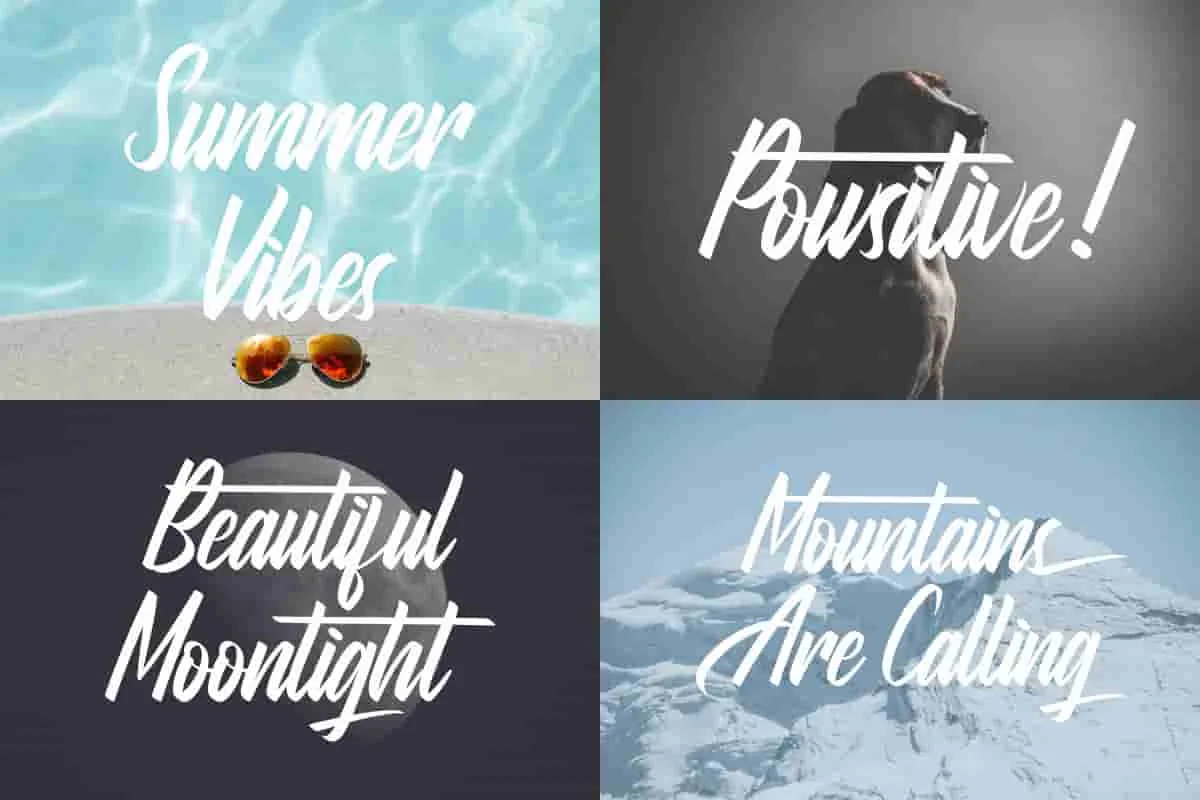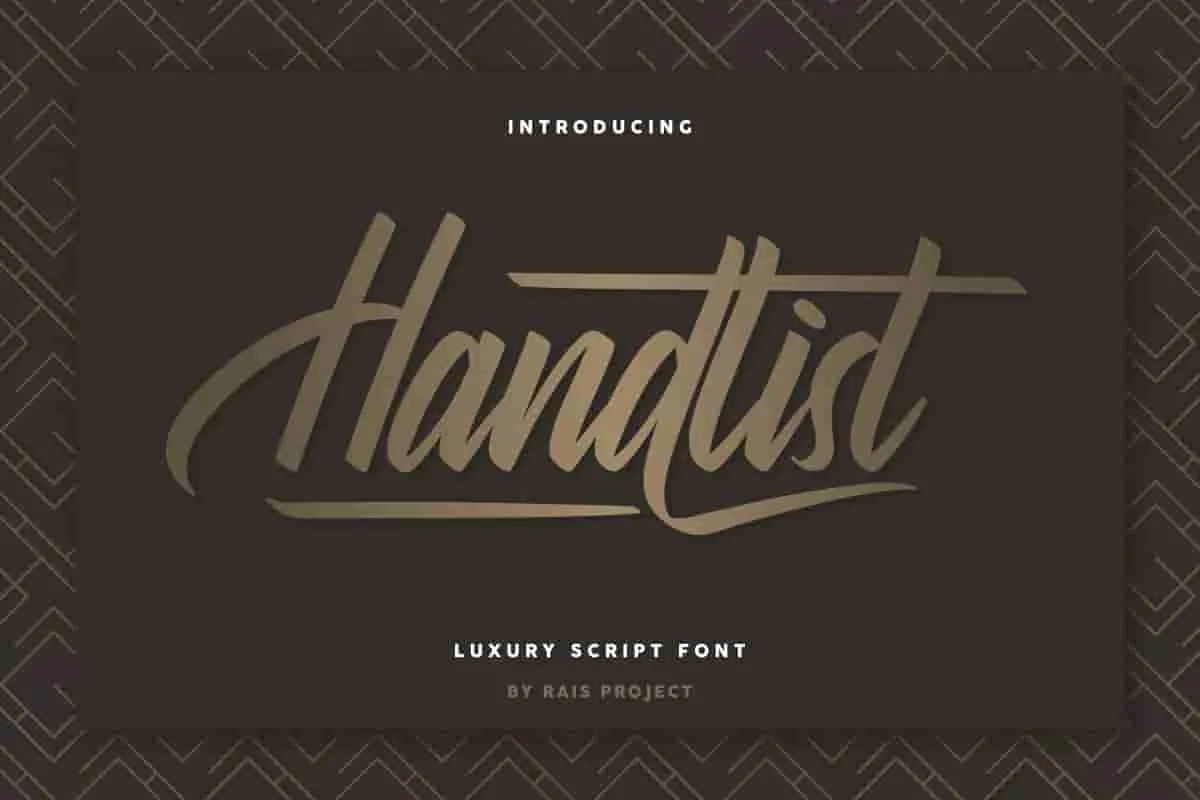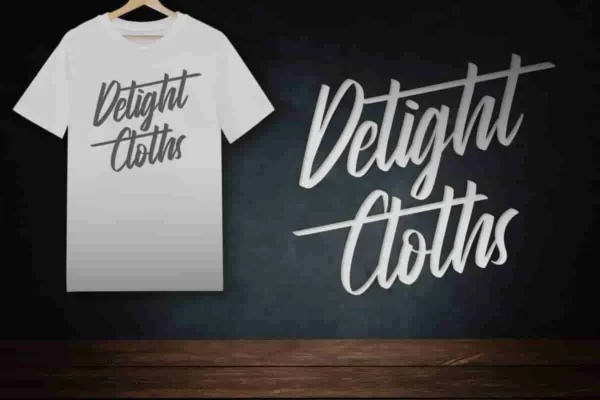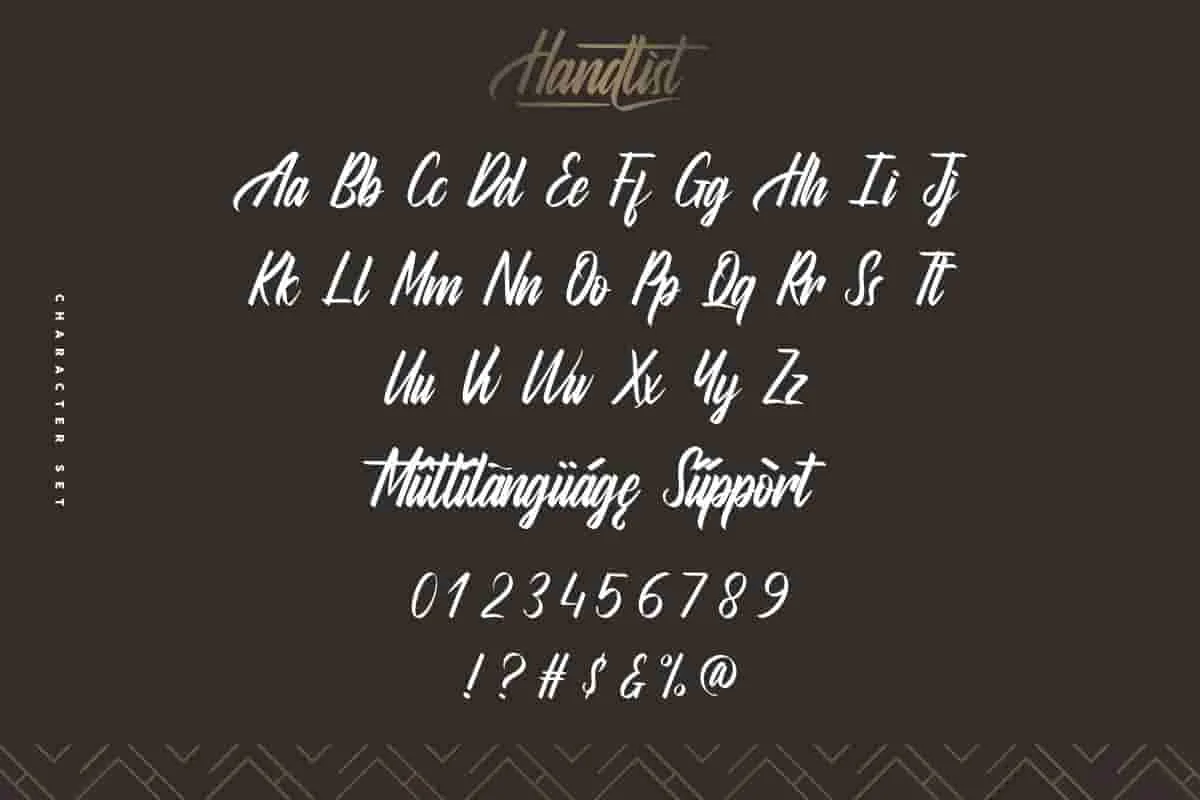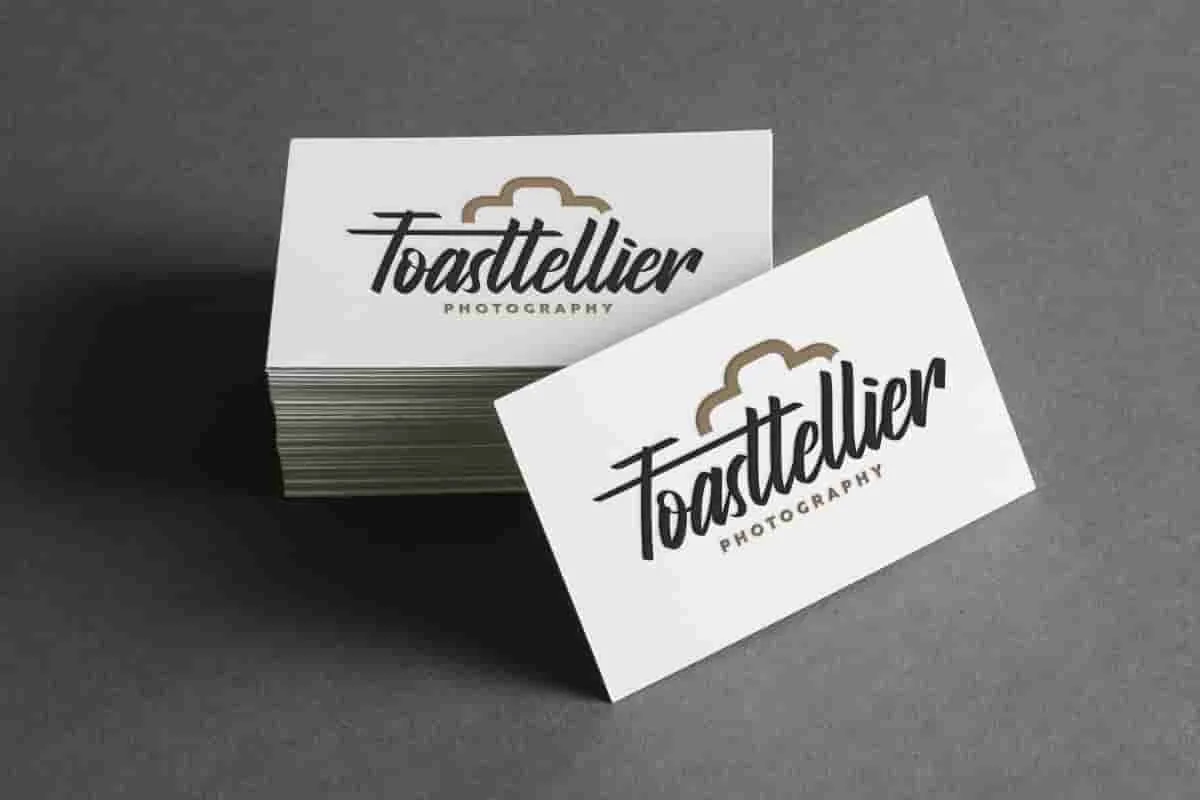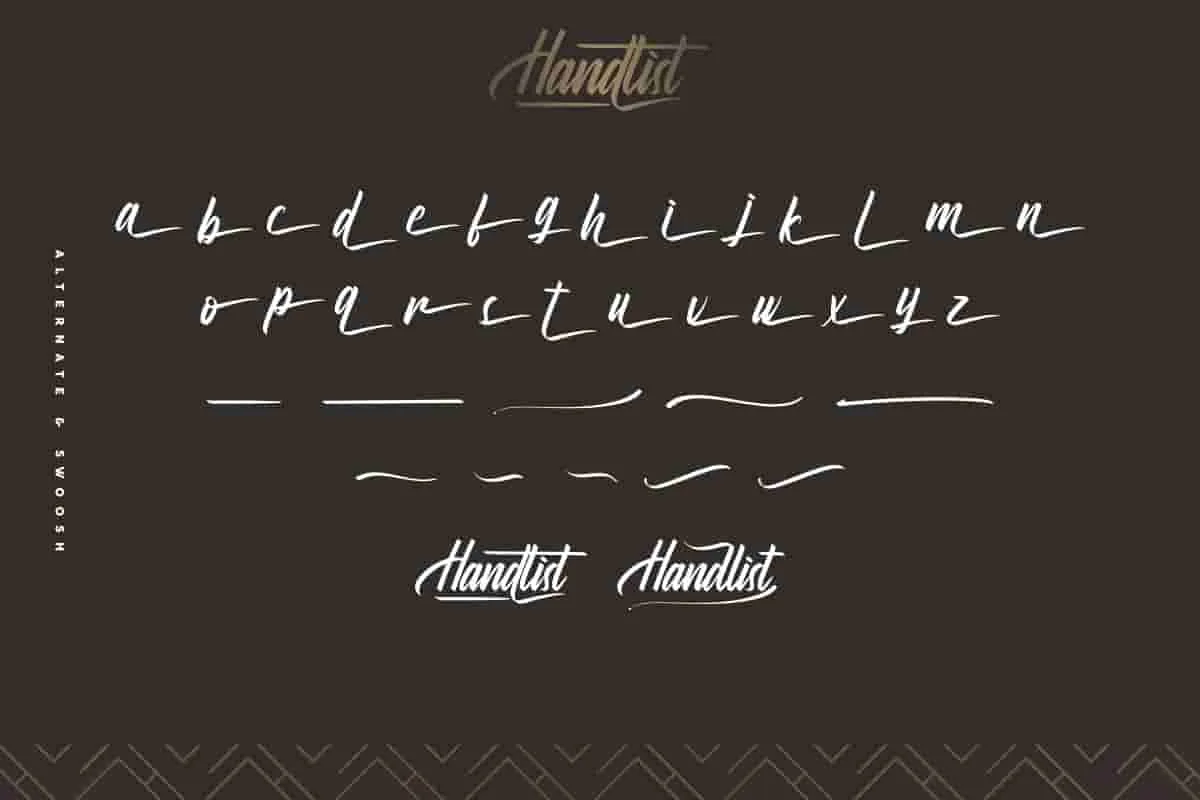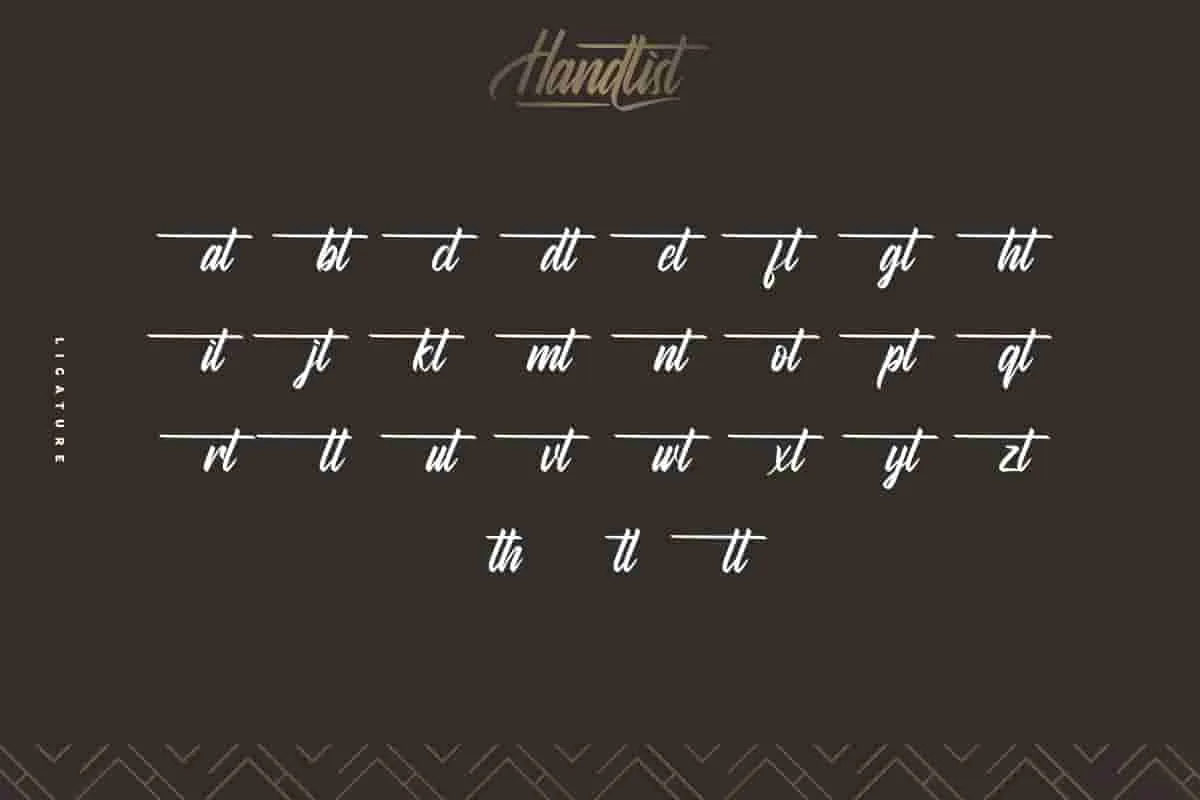
Handlist Calligraphy Font
Handlist Font is an Original Calligraphy Font by RaisProject. With exclusive characters, it will be stunning for any your special projects including : weddings, promotion, events, branding, advertising etc
Handlist Font  is a Original beautiful script font with calligraphy handwriting style. You can see the demo font below. You can also input any word you want so you can see what it will look like :
Introducing Handlist Calligraphy Font, a modern script font that captures the beauty of handwritten lettering with a graceful, flowing rhythm. Designed for creatives, designers, and business owners, Handlist adds a touch of elegance and warmth to every design it touches.
Crafted with smooth curves and natural swashes, this font brings a personal, romantic feel to everything from wedding invitations and logos to social media posts and product packaging. It’s ideal for those who want their typography to feel authentic, emotional, and timeless.
Handlist Font made in Indonesia by Widi and Suci for RaisProject. The font handcrafted With beautiful characters, it will be stunning for any your special projects including : weddings, promotion, events, branding, advertising, magazine, shopping, signage, invitation, stationery, social media posts, product packaging, product designs, label, photography, watermark or and any projects that need calligraphy handwriting style.
Handlist Font includes full set of gorgeous uppercase and lowercase letters, numerals, a large range of punctuation and ligatures. All letters has realistic hand-lettered style to make it unique yet stunning design.
• Wedding invitations & bridal stationery
• Social media graphics & inspirational quotes
• Journals, planners, and elegant printables